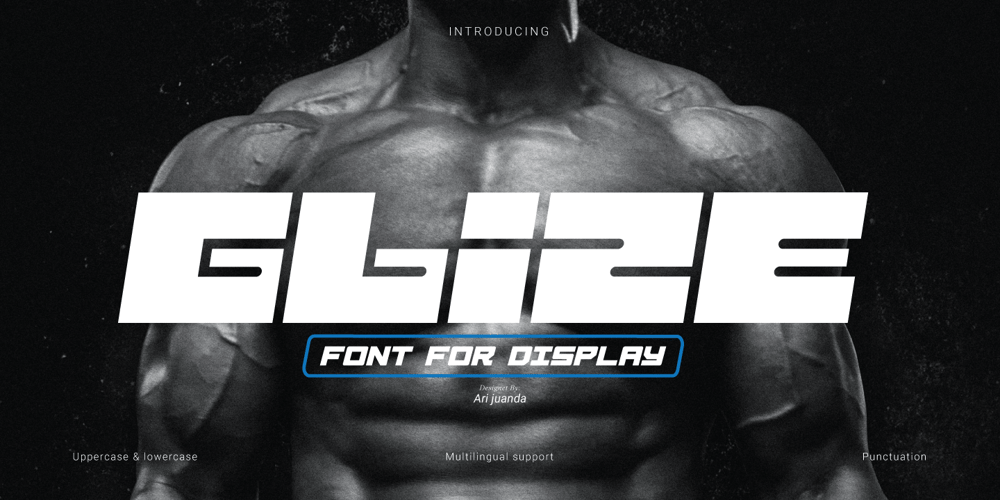
Glize Font Family was designed by Ari Juanda and published by Linecreative. Glize contains 1 styles and family package options. Introducing “Glize” – a dynamic and bold oblique typeface designed to infuse your projects with an unmistakable sense of speed, strength, and sharpness. Crafted with precision, this font exudes a powerful and energetic vibe, making it an ideal choice for projects centered around superhero themes, sports, esports, and other high-energy contexts.The bold strokes of “Glize” create a commanding presence, instantly capturing attention and conveying a sense of forceful momentum. The oblique angles add a dynamic slant, enhancing the font’s overall sense of motion and agility. Each character is meticulously shaped to embody a sleek and streamlined aesthetic, contributing to the font’s ability to convey a feeling of speed and intensity.Whether you’re designing a logo for an esports team, crafting promotional materials for a high-impact sporting event, or working on a project that demands a bold and powerful visual identity, “Glize” is the perfect companion. Its bold oblique design ensures that your message is delivered with vigor, leaving a lasting impression on your audience. Elevate your designs with the striking and forceful character of “Glize” – where bold meets speed, and strength meets style.